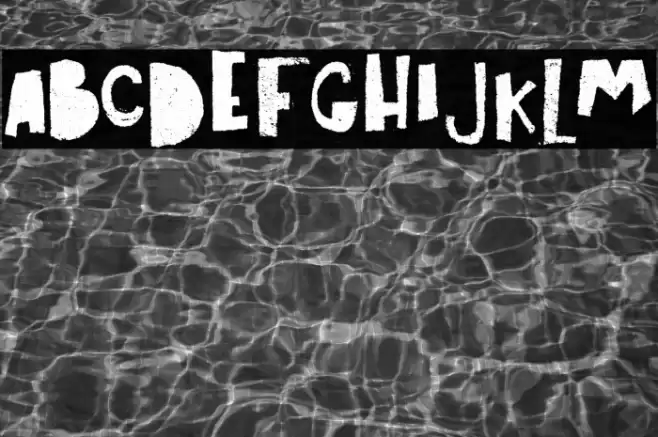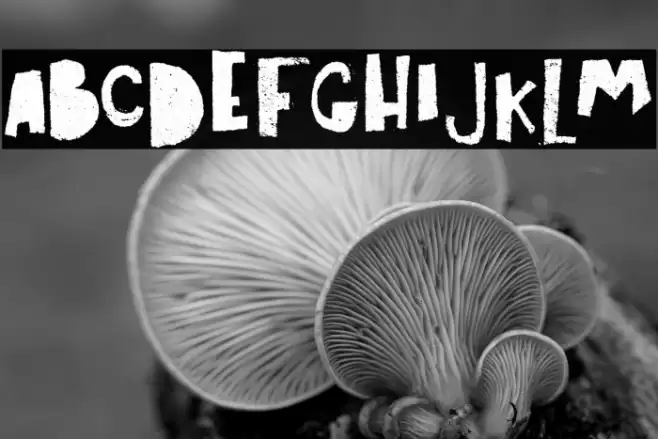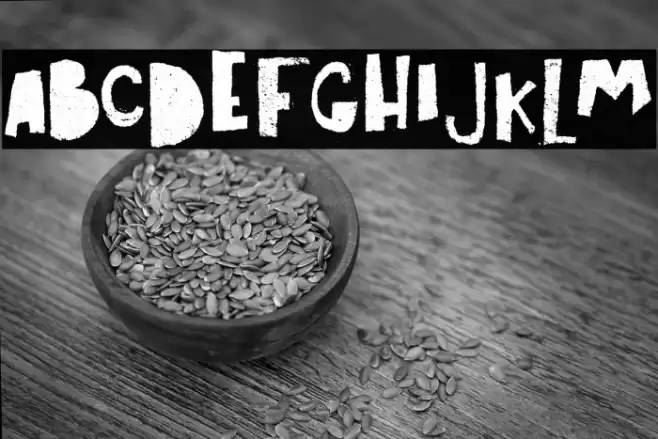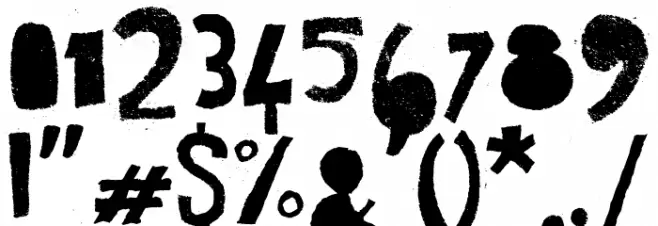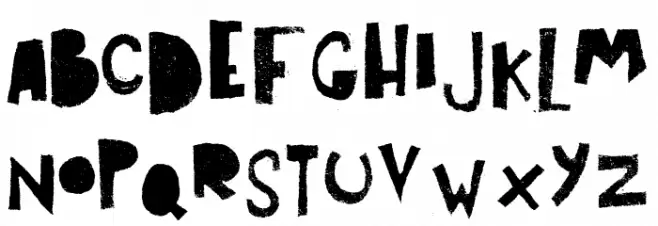
Art Post black Font
Art Post black Description
This font features a bold, hand-drawn style with a rough, textured appearance, reminiscent of vintage poster art. The characters are irregular and playful, with varying stroke widths that give it a dynamic and energetic feel. The uppercase letters are bold and prominent, while the lowercase letters maintain the same playful aesthetic. Numbers and special characters follow the same design, ensuring consistency across all elements. The font's unique style makes it stand out, offering a creative and artistic vibe.
A bold, textured, hand-drawn font with a playful and vintage poster art style from Uncategorized fonts.
- Font: Art Post black
- Proposed Projects: Ideal for creative projects such as posters, album covers, children's books, and artistic branding.
- Overall Style: Vintage, Artistic
- Use Case: Headlines, Posters, Artistic Branding
Art Post black UPPERCASE
Art Post black LOWERCASE
Art Post black OTHER CHARS